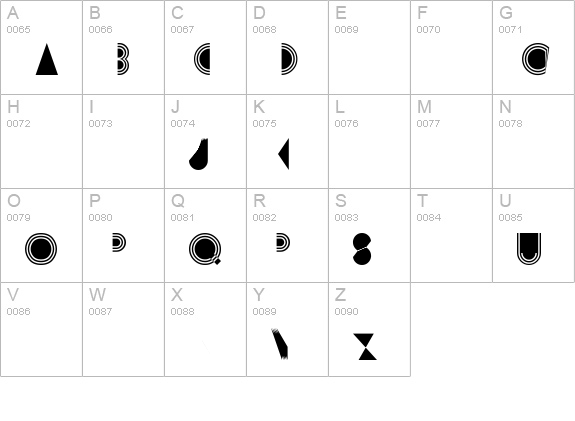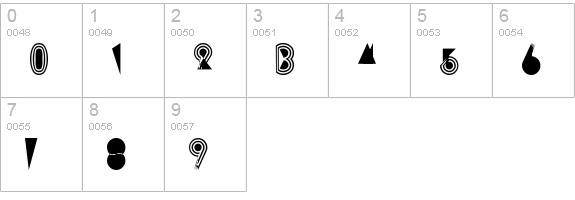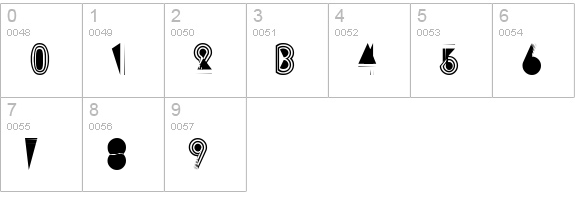
Rimsar Font Details
Introducing Rimsar, a captivating font that seamlessly blends elegance and modernity. This remarkable typeface is the perfect choice for those seeking to add a touch of sophistication to their designs. Rimsar boasts a unique combination of sleek lines and delicate curves, creating an effortlessly chic aesthetic that is sure to captivate your audience. Whether you're designing a logo, creating eye-catching headlines, or crafting stunning invitations, Rimsar will elevate your work to new heights. But what truly sets Rimsar apart is its availability as a free download. That's right, this exceptional font is freely accessible to all creatives, allowing you to unleash your imagination without any barriers. Simply head over to FontsMarket.com, and you'll find Rimsar ready and waiting for you. With Rimsar, you'll have the freedom to explore diverse design possibilities, experiment with different styles, and create compelling visuals that leave a lasting impression. Its versatility knows no bounds, making it an ideal choice for a wide range of projects. So why wait? Take advantage of this incredible opportunity and download Rimsar today. Embrace the elegance, embrace the modernity, and let your creativity soar with this remarkable font. Remember, it's free and only a few clicks away at FontsMarket.com.